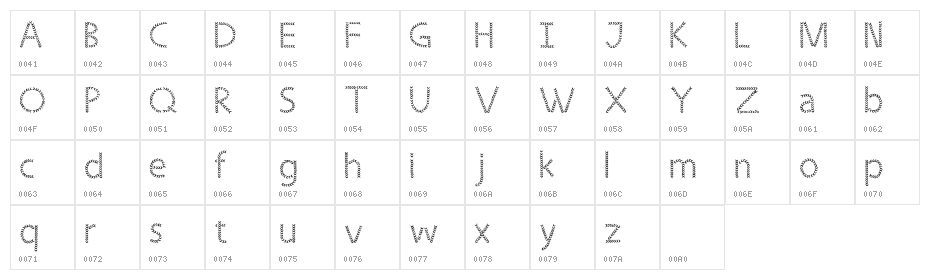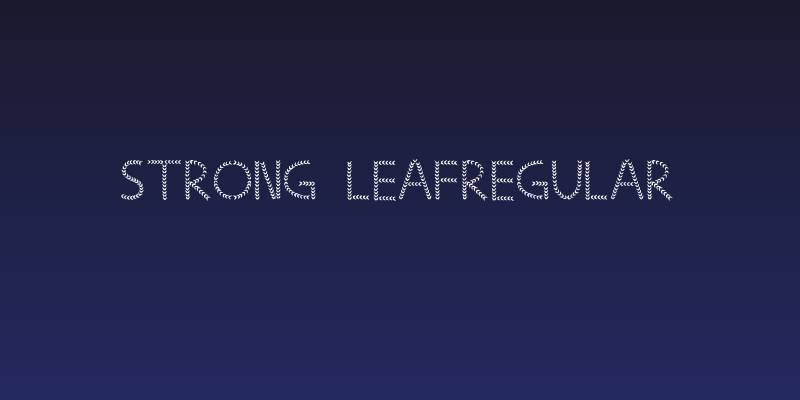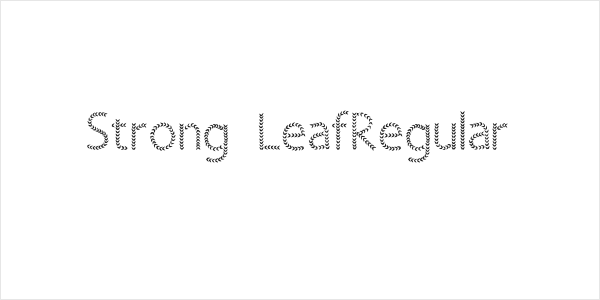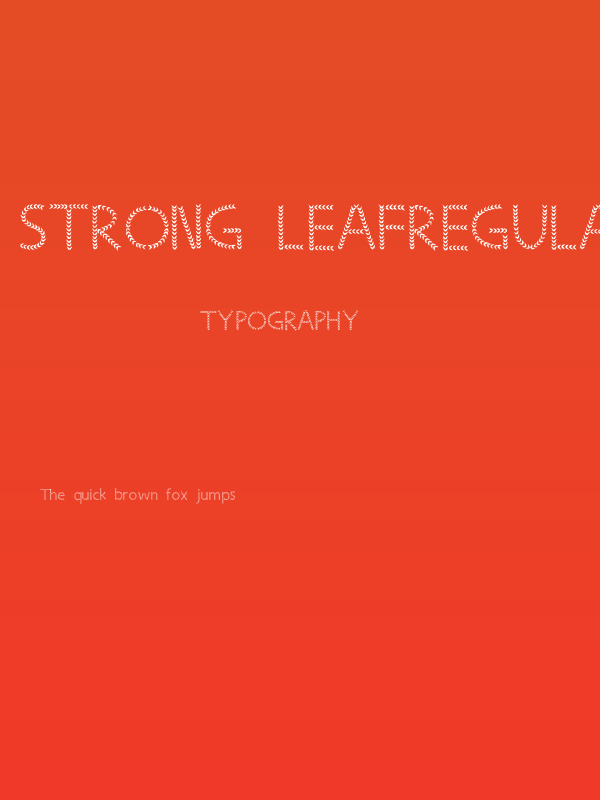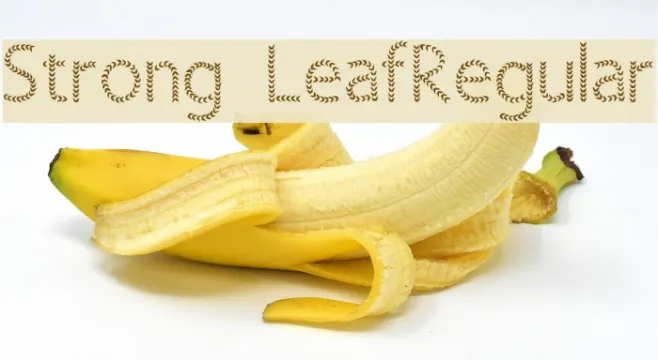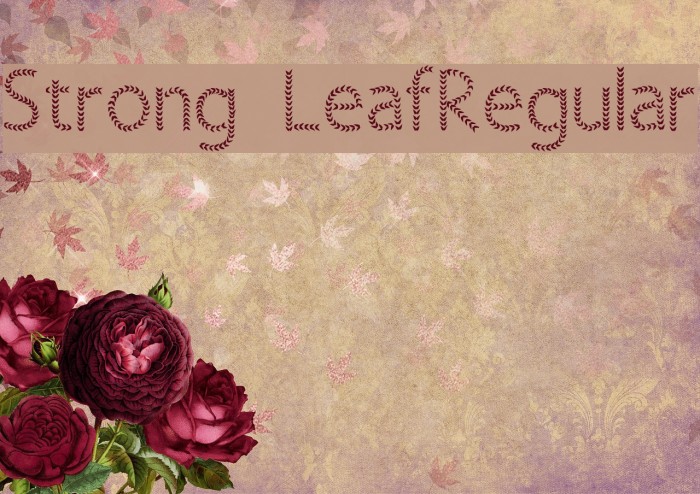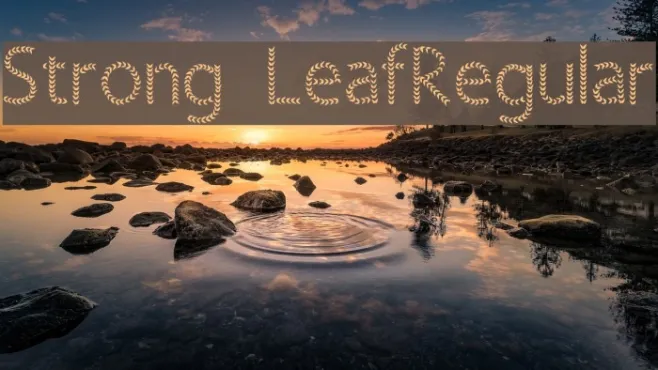
Strong LeafRegular Font
This font features a unique design where each character is composed of small, leaf-like shapes that create a textured, organic appearance. The letters are bold and distinct, with a consistent pattern that gives a sense of movement and flow. The uppercase and lowercase letters maintain a uniform style, while the numerals and special characters integrate seamlessly into the overall design. This font's intricate detailing makes it stand out, offering a visually engaging experience.
| Use Case | Logos, Headlines, Posters |
| Proposed Projects | Ideal for eco-friendly branding, nature-themed posters, or creative invitations. |